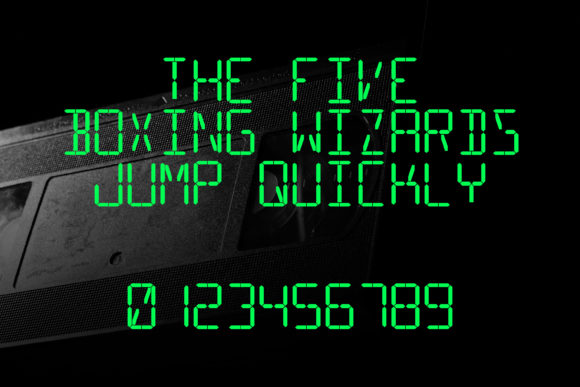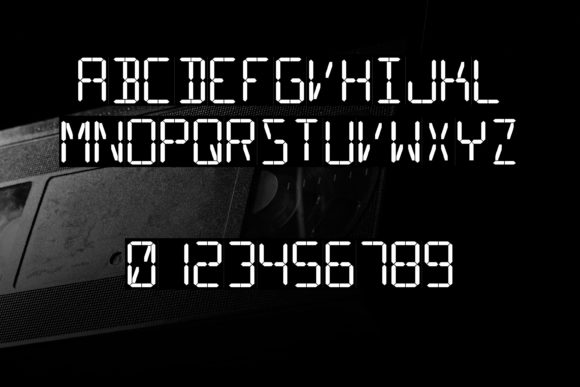
The Retro Charm of 16 Segment Display Font
Have you ever been working on a design project, trying to evoke a sense of nostalgia or retro flair, only to find that the perfect font is just out of reach? I recently found myself in this situation, tasked with creating a vintage-inspired poster for a client’s new product launch. The challenge? Finding a font that captured the essence of old-school electronics, like VCRs and clock radios. That’s when I stumbled upon the 16 Segment Display Font, and it was love at first sight! 💡
So, what makes this font so special? Let’s dive into the good stuff and a few quirks I’ve discovered while working with it.
- ✅ Retro aesthetic: The 16 Segment Display Font nails that retro look, perfect for designs that need a nostalgic vibe.
- ✅ Color support: As an OpenType-SVG font, it supports color, which is a game-changer for designers looking to add an extra pop to their work.
While the 16 Segment Display Font is fantastic, there are a couple of things to keep in mind:
The Design Inspiration Behind 16 Segment Display Font
The 16 Segment Display Font draws inspiration from the early days of electronic devices, where segment displays were the norm. Designers aimed to capture the nostalgic feel of these old-school gadgets, bringing back memories of VCRs, CD players, and clock radios. The result is a font that’s both retro and versatile, suitable for a wide range of design projects.
Q: What type of font is 16 Segment Display Font?
A: It’s an OpenType-SVG color font, which means it supports color and can be used in compatible design software.